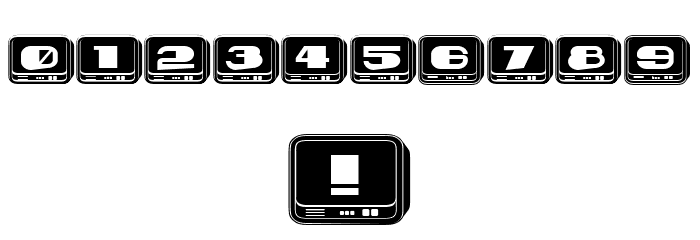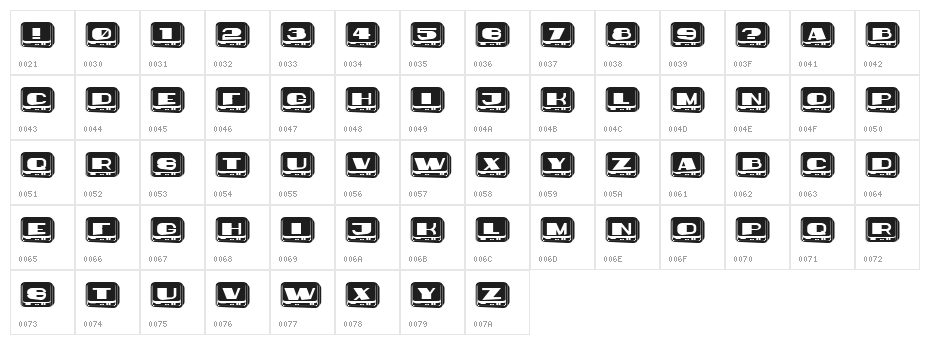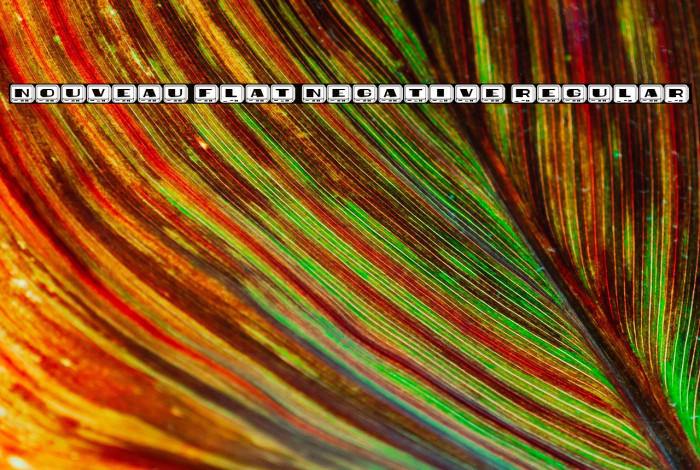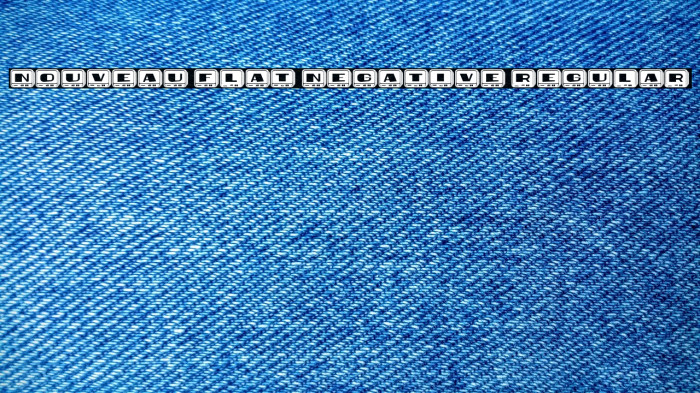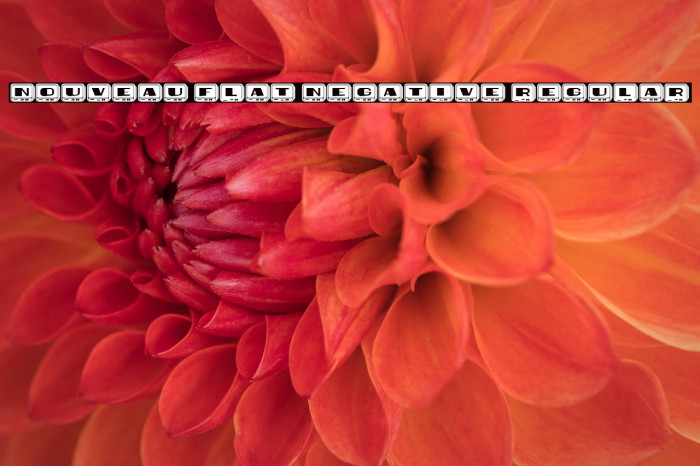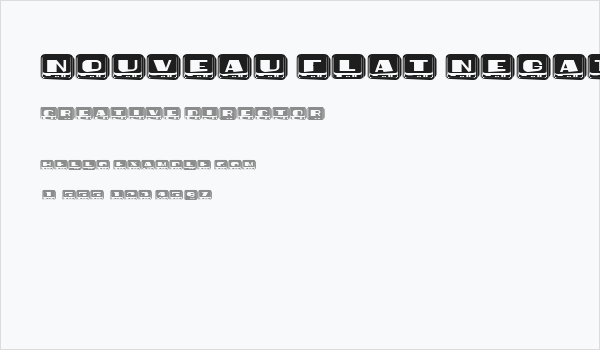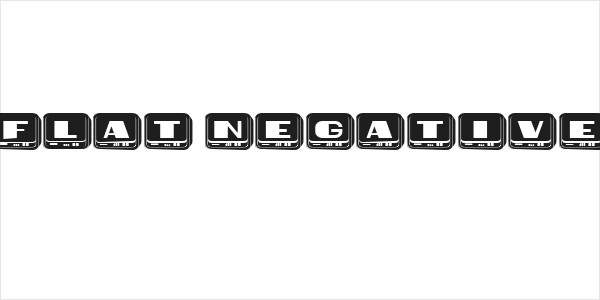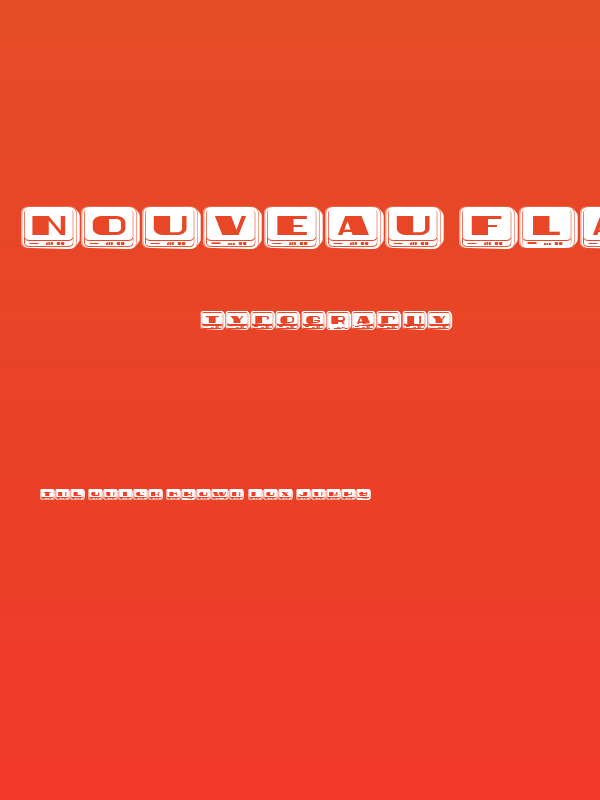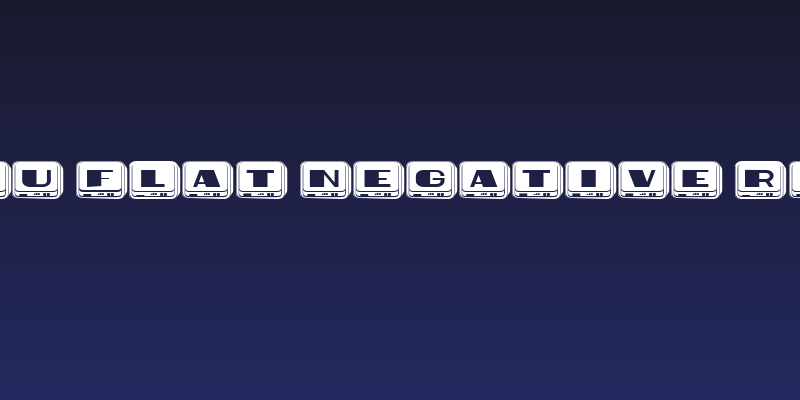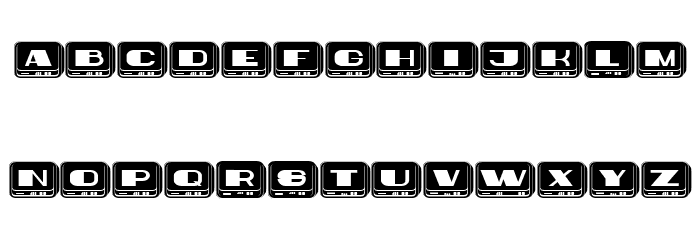
Nouveau Flat Negative Regular Font
Nouveau Flat Negative Regular Description
This font features a unique, retro-inspired design with a digital, tech-like aesthetic. Each character is enclosed within a rounded square, reminiscent of old-school computer keys or vintage television screens. The letters and numbers are bold and blocky, with a consistent stroke width that gives them a solid, impactful presence. The negative space within each character is cleverly utilized to enhance readability while maintaining the overall stylistic theme. This font's distinct appearance makes it ideal for projects that aim to evoke a sense of nostalgia or a futuristic vibe.
| Overall Style | Retro, Futuristic |
| Use Case | Logos, Posters, Branding |
| Proposed Projects | Ideal for retro-themed designs, tech-related branding, video game interfaces, and futuristic posters. |